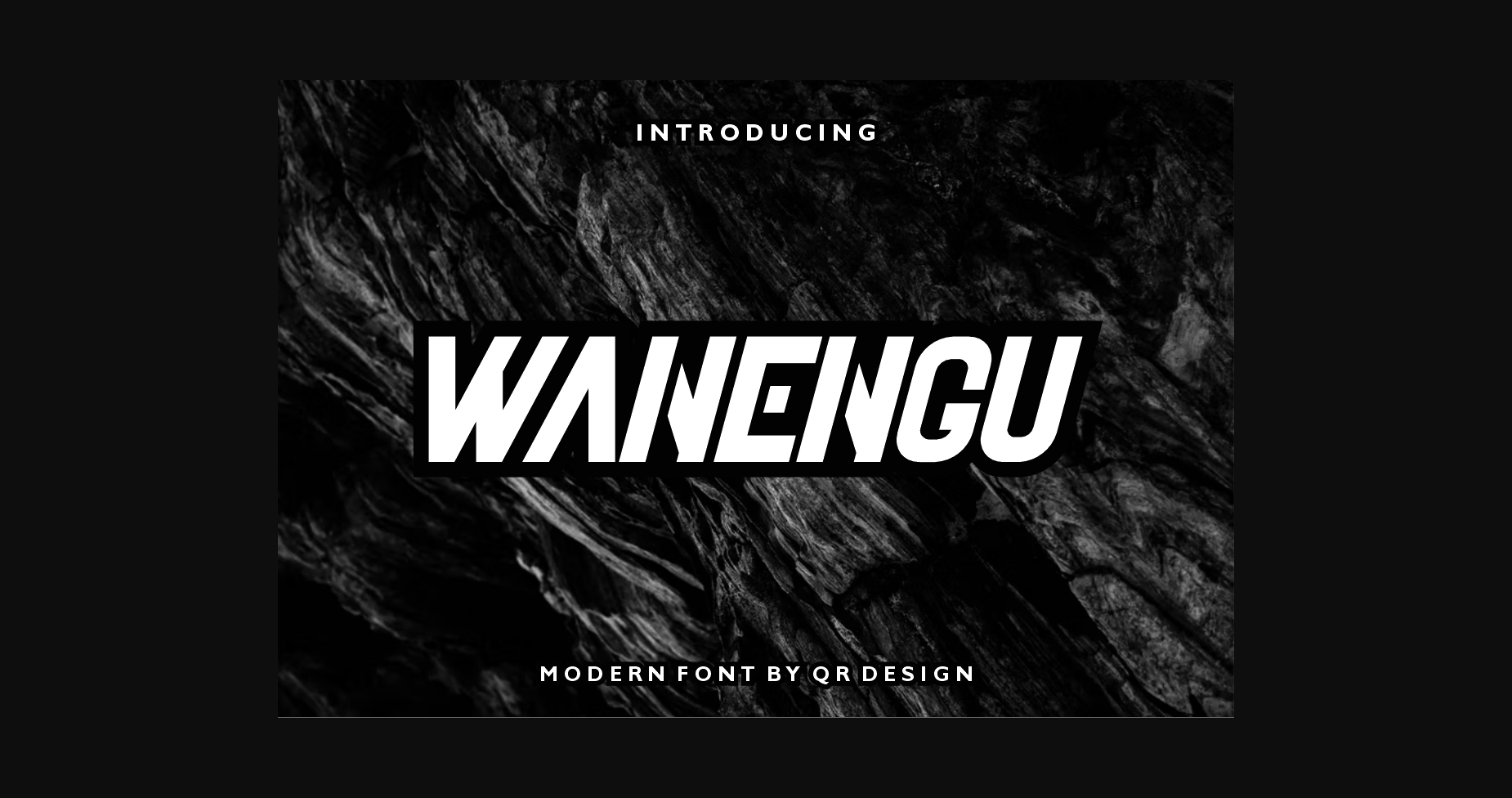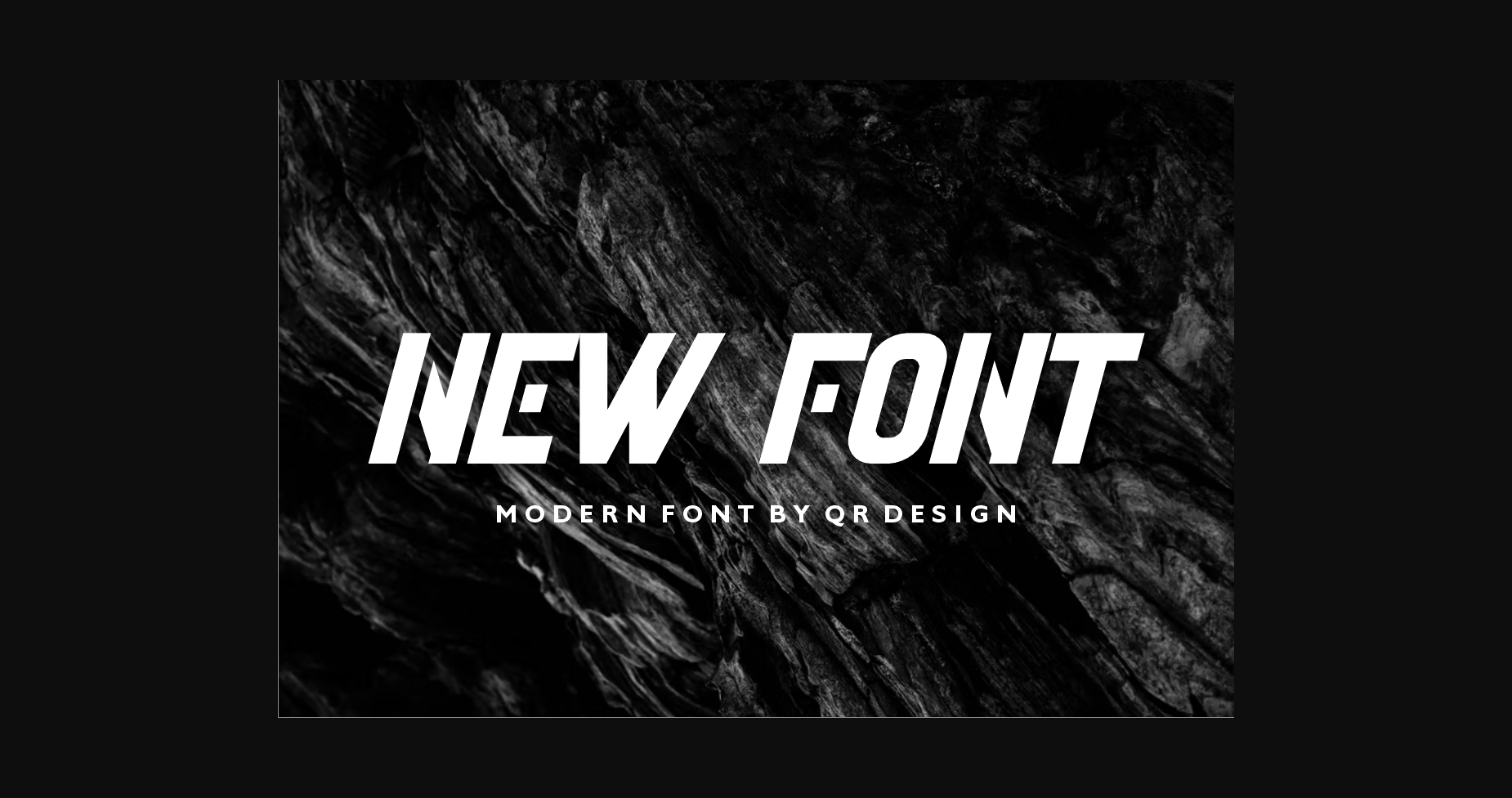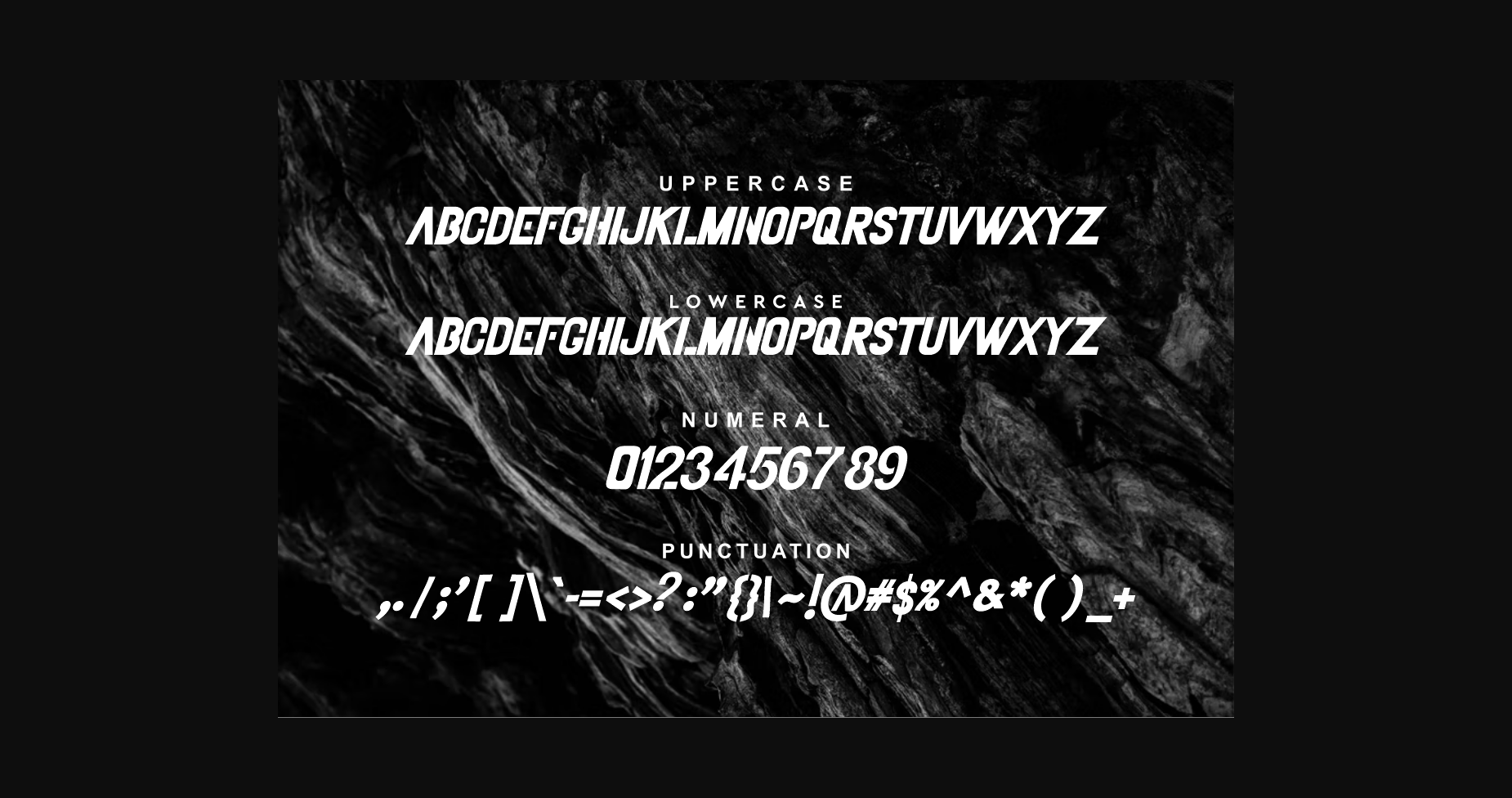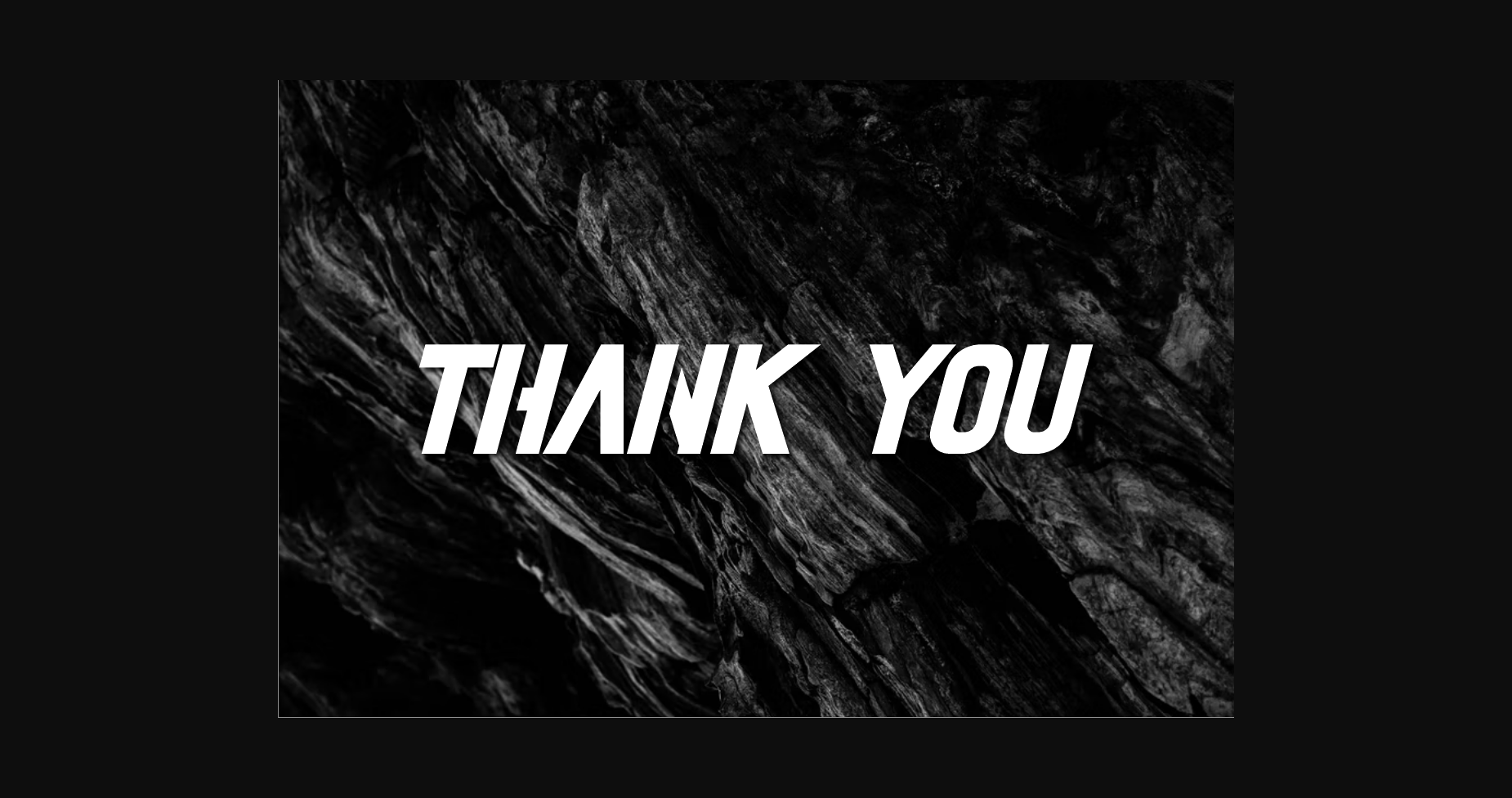
HomeSans Serif FontsWanengu Font Sans Serif Fonts Wanengu Font FacebookXPinterestWhatsApp 1 of 6 ... Wanengu Font Poster 2... Wanengu Font Poster 3... Wanengu Font Poster 4... Wanengu Font Poster 5... Wanengu Font Poster 6... About Wanengu Font Wanengu is a cool sans serif font defined by straight edges. This font is a great gaming font, but it also works well for any item that needs a modern look. Add it with confidence to your projects, and you’ll love the results! DOWNLOAD NOW People also explored Skyrim Font Earth Quest Font Student Font Acrobad Script Lune Font Smiles Playful Font Teacher Kindness Font Martinoly Font Ragat Font 316 0 TagsWanenguWanengu Font Previous articleEasy Headline FontNext articleDesango Font LEAVE A REPLY Cancel reply Comment: Please enter your comment! Name:* Please enter your name here Email:* You have entered an incorrect email address! Please enter your email address here Website: Save my name, email, and website in this browser for the next time I comment. Personal Use Free Makeba Font Personal Use Free Read more about this font Bakk Trieng Personal Use Free Read more about this font Short Message Personal Use Free Read more about this font Reztop Personal Use Free Read more about this font BLOG How to Cut Any Font on Cricut: Convert a Font to SVG (Free) Turn any font into a clean SVG so it cuts crisp on Cricut - a quick 3-step workflow using a free font-to-SVG tool. Exploring Font Trends Transform Your Website: Elevate Your Typography with 7 Best Web Font Generators Best Fonts for T-Shirt Design – Top 2025 Picks